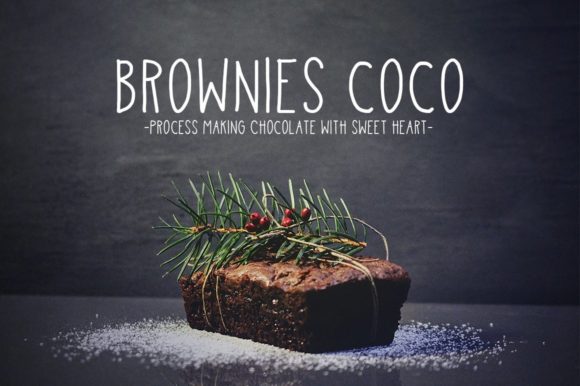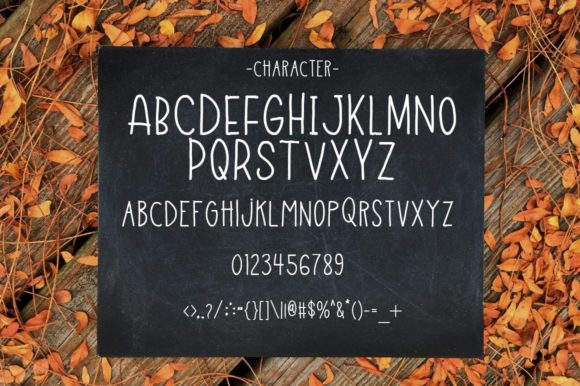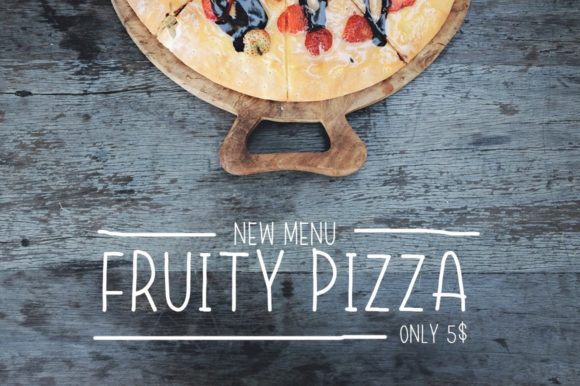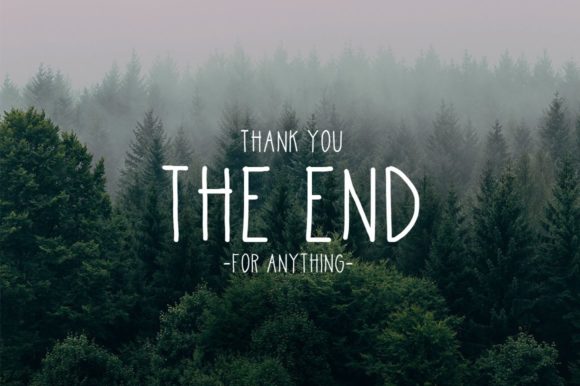
Fun Field Font
About Fun Field Font
Fun Field is a simple lettered and neat handwritten font. No matter the topic, this font will be an incredible asset to your fonts’ library, as it has the potential to elevate any creation.